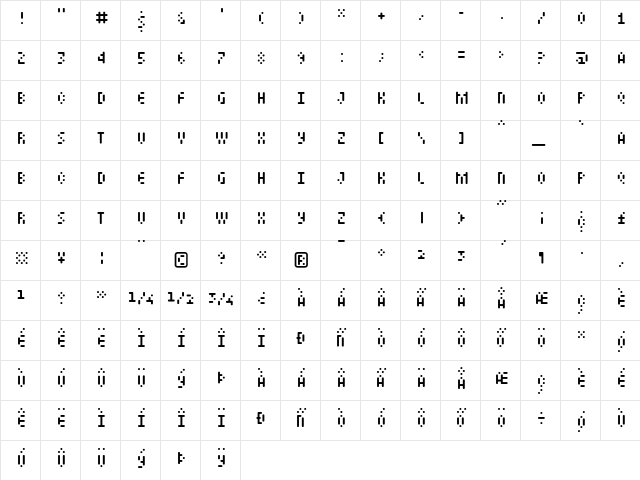
Mastertext Regular Font Preview
Mastertext Regular
Mastertext Regular Font Details
Design Context for Mastertext Typeface
Mastertext is a composed and adaptable typeface that performs quietly and consistently across a wide range of design contexts.